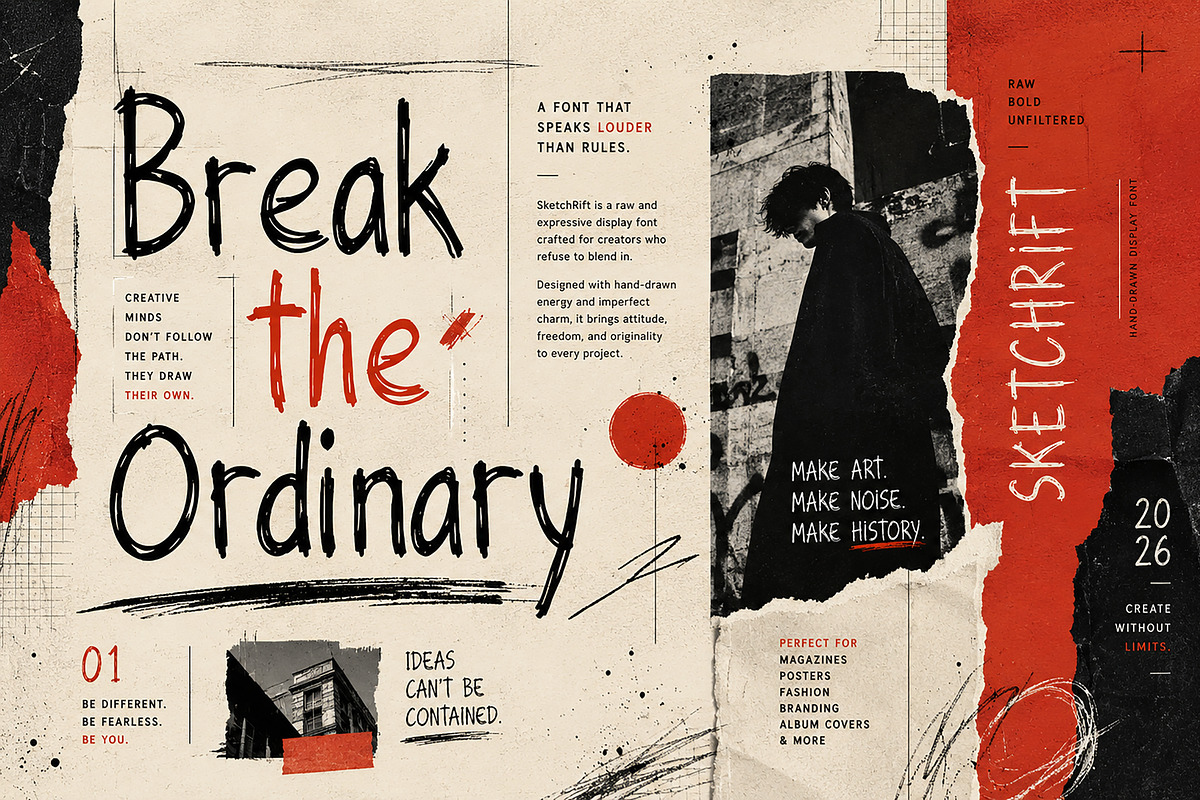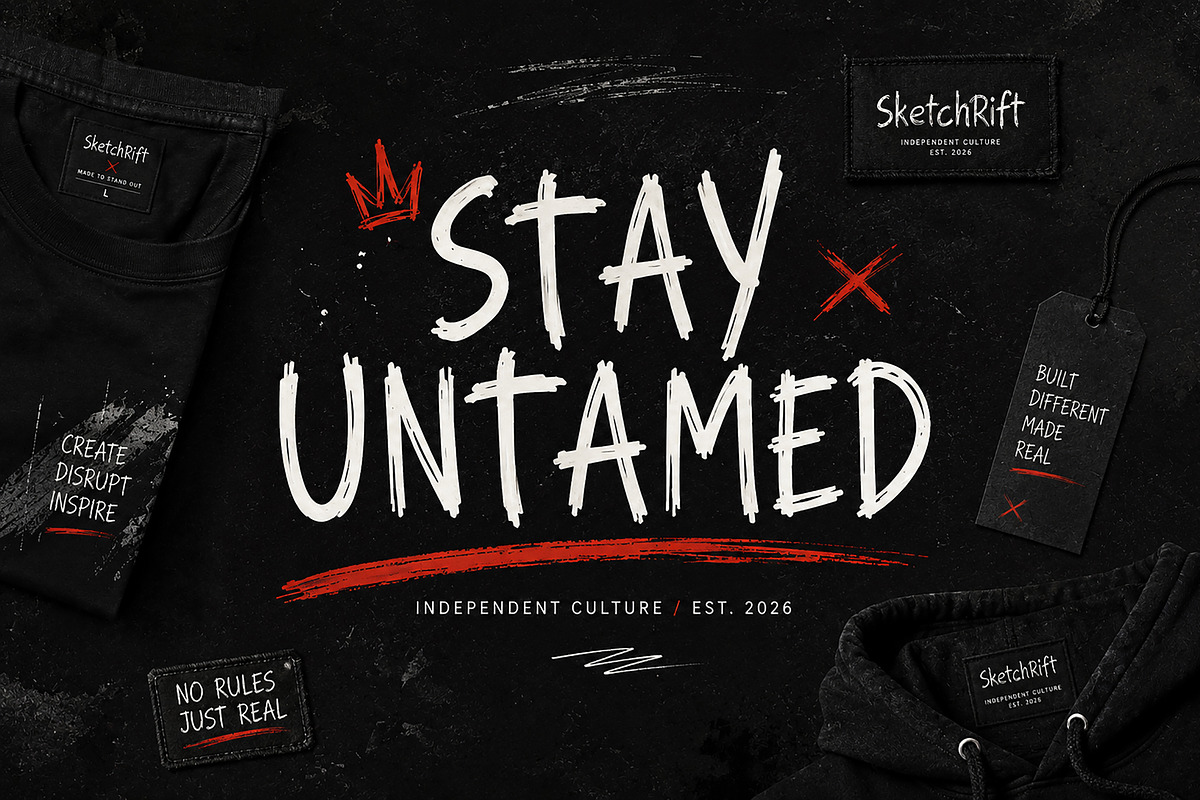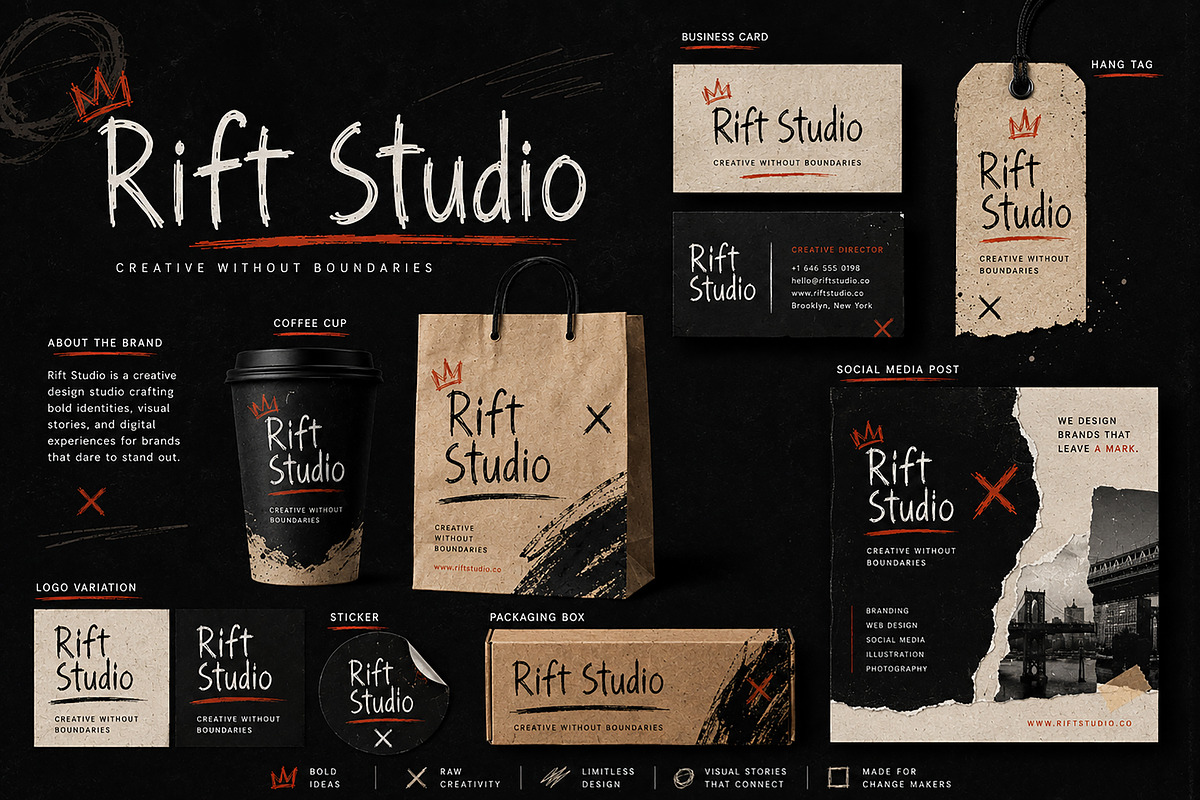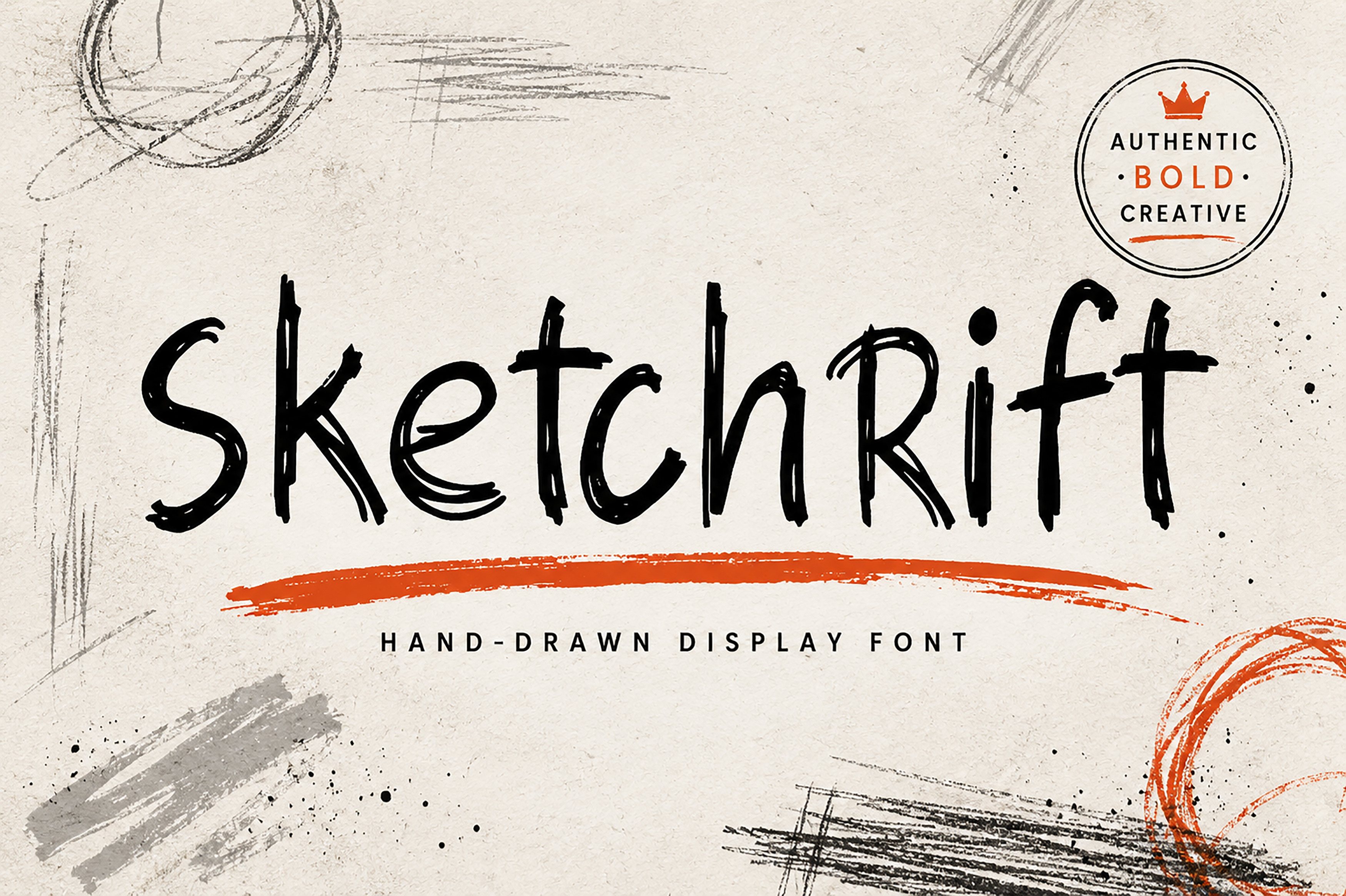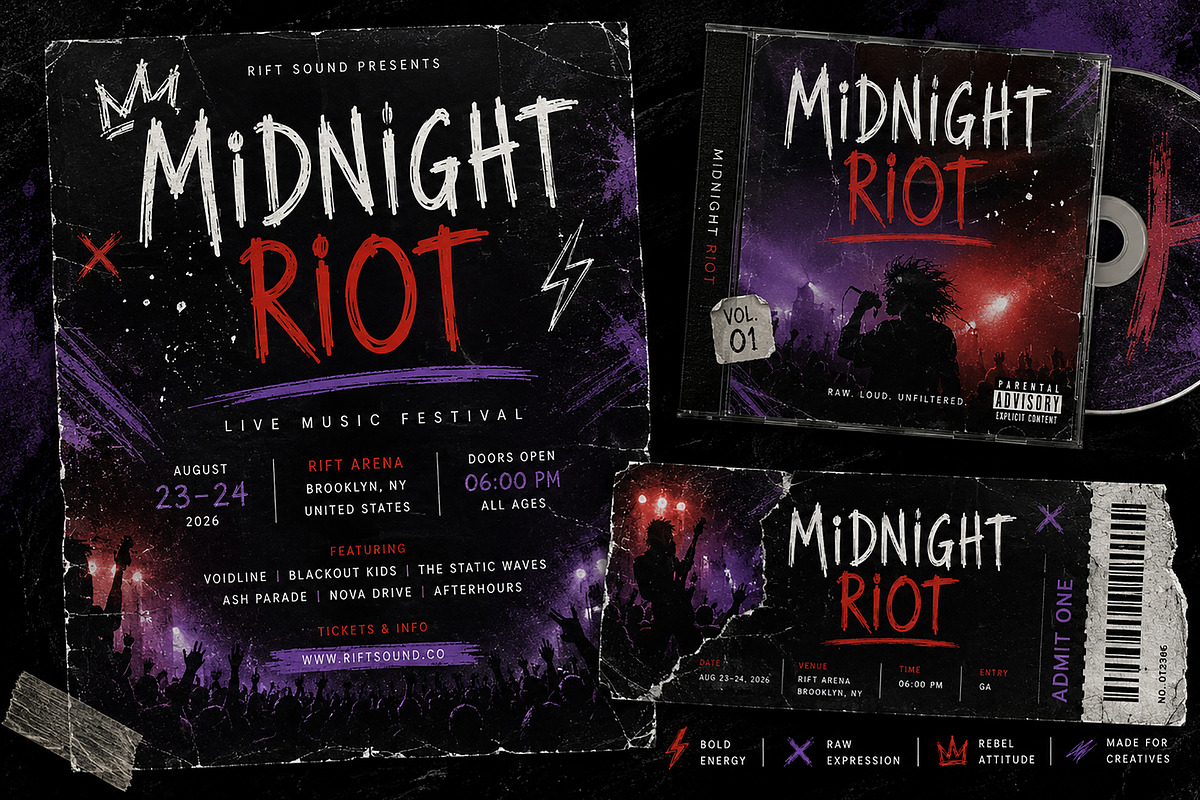
SketchRift – Hand-Drawn Display Font
SketchRift is a bold hand-drawn display font with raw brush-inspired strokes and an expressive handcrafted personality. Designed to capture attention, it brings an authentic artistic feel to posters, streetwear branding, album covers, creative packaging, social media graphics, and modern editorial designs.
Every letter carries natural imperfections, giving your projects a unique handmade character while maintaining excellent readability for impactful headlines and branding.
Unleash your creativity with SketchRift, a handcrafted display font created for designers who want their typography to stand out.
Inspired by rough brush lettering, sketchbook strokes, and urban creative culture, SketchRift delivers a bold, energetic, and authentic appearance that instantly adds personality to any design.
Whether you're creating eye-catching posters, fashion branding, music festival artwork, YouTube thumbnails, logo concepts, or social media content, SketchRift helps your work feel expressive, modern, and unforgettable.
Its handcrafted texture creates a natural human touch that works beautifully for creative industries, streetwear brands, coffee shops, tattoo studios, album artwork, packaging, and editorial layouts.
Branding Projects
Streetwear Apparel
Fashion Campaigns
Album Covers
Music Festival Posters
Editorial Layouts
Magazine Headlines
Creative Packaging
Coffee Branding
Tattoo Studio Branding
YouTube Thumbnails
Posters
Sticker Design
Event Promotions
Advertising
Creative Print Design
Why You'll Love SketchRift
Authentic handcrafted appearance
Bold and expressive personality
Perfect for creative branding
Professional yet artistic
High visual impact
Great for both print and digital projects
Easy to combine with clean sans-serif fonts